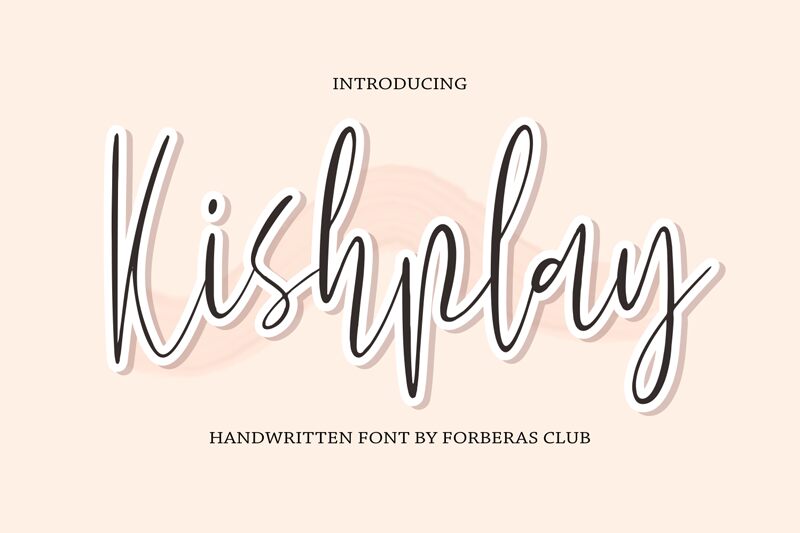
Kishplay, a remarkable creation by Forberas Club, is an extraordinary handwritten font that exudes elegance and uniqueness. With its extra-light weight and condensed width, Kishplay adds a touch of sophistication to any project it graces. Perfect for wedding invitations, delicate logos, and refined branding materials, this font captures attention with its refined strokes and graceful curves. Whether you're designing an upscale event poster or creating stylish social media graphics, Kishplay effortlessly combines charm and professionalism to elevate your designs to new heights. Unleash your creativity and let Kishplay make a lasting impression.
Kishplay